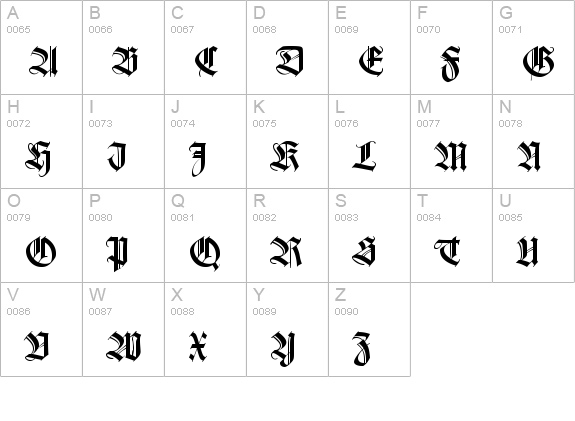
Wilhelm Klingspor Gotisch Font Details
Wilhelm Klingspor Gotisch font is a stunning display of Gothic lettering, paying homage to the rich heritage of medieval calligraphy. Its intricate and elegant design captures the essence of old-world craftsmanship, making it a perfect choice for projects that require a touch of historical charm. The letterforms of Wilhelm Klingspor Gotisch font are meticulously crafted, with sharp serifs, dramatic angles, and graceful curves. Each character exudes a sense of timeless beauty, combining the strength and boldness of Gothic architecture with the delicate intricacies of handwritten manuscripts. This font is not only visually striking but also highly versatile. Whether you're creating logos, branding materials, posters, or invitations, Wilhelm Klingspor Gotisch font will lend a distinctive and sophisticated flair to your designs. Its unique aesthetic can transport viewers to a different era, evoking a sense of nostalgia and enchantment. Moreover, Wilhelm Klingspor Gotisch font is freely available to download at FontsMarket.com. This means that you can enhance your creative projects without any additional cost or restrictions. The font's accessibility makes it an excellent choice for designers, students, or anyone looking to add a touch of elegance to their work. With Wilhelm Klingspor Gotisch font, you have the opportunity to bring the beauty of Gothic calligraphy to your designs, unlocking a world of possibilities. Download this font today from FontsMarket.com and embark on a creative journey that merges the past with the present, creating captivating visuals that will leave a lasting impression.